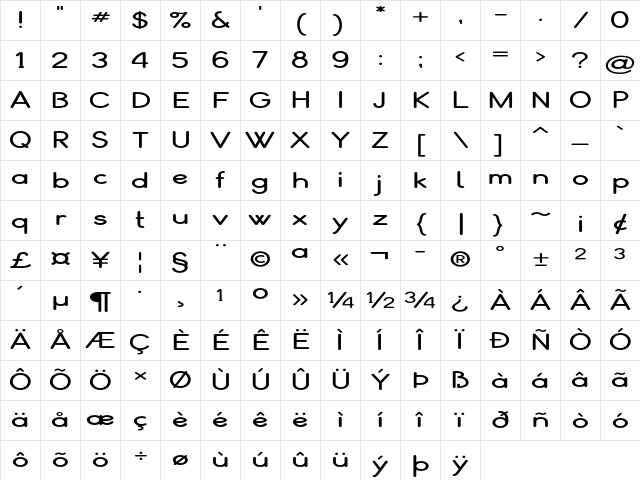
Zadoka Extra-expanded Regular Free Font
Zadoka Extra-expanded Regular
Style: Extra-expanded Regular
Zadoka Family
Design Context for Zadoka
Zadoka is a composed and adaptable typeface that performs quietly and consistently across a wide range of design contexts.